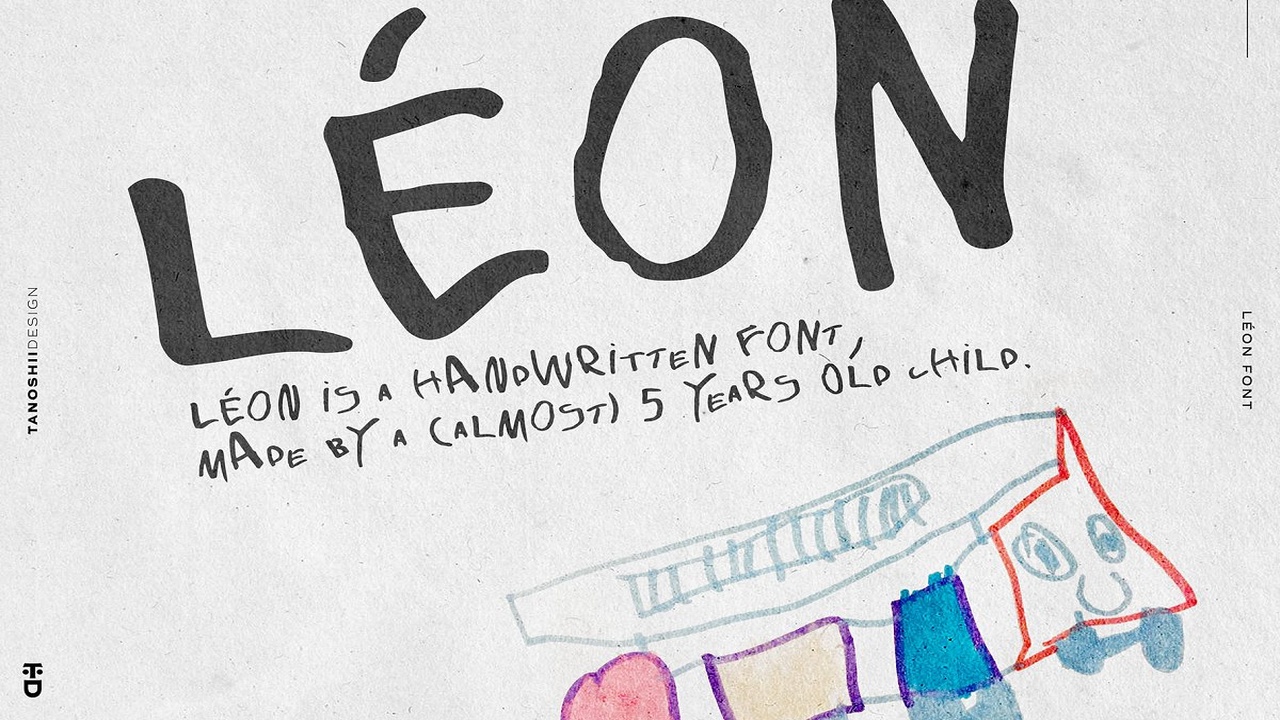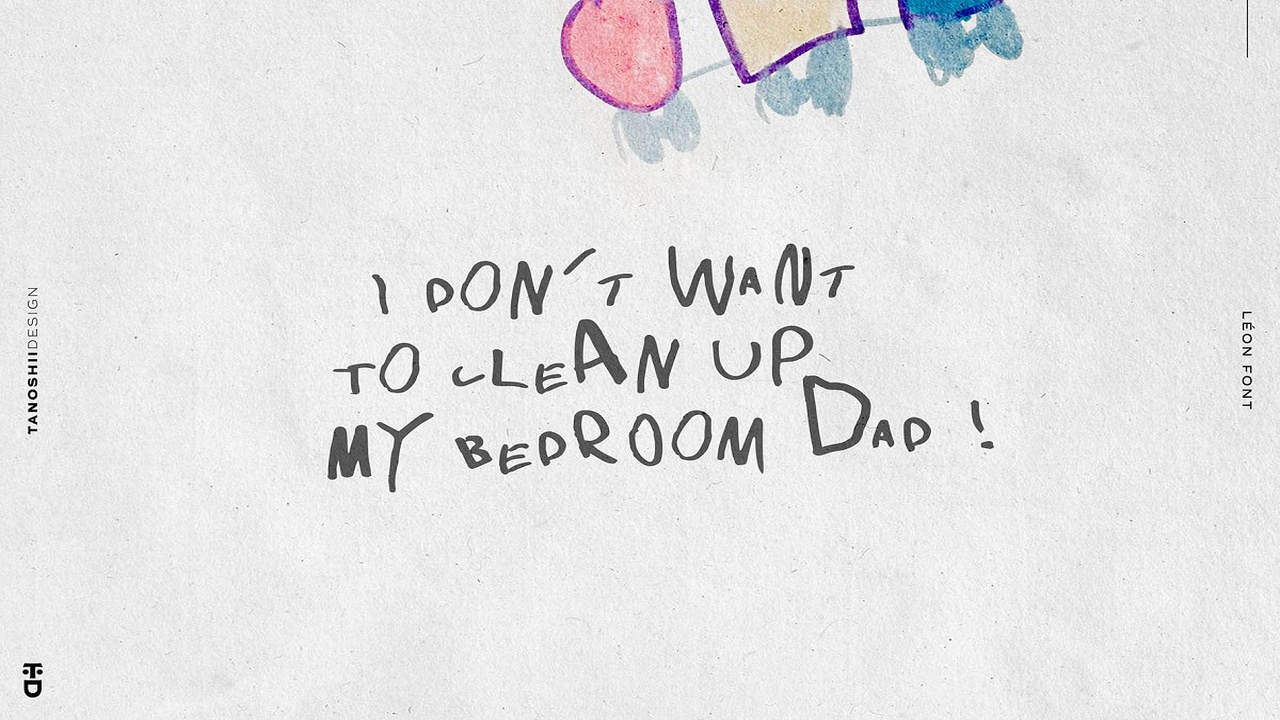
About the LON Handwritten Font
LÉON is a handwritten child font made with my (almost) 5 years old son, OTF onlyCAP onlyMockups, illustrations, paper texture shown in the preview examples are not included (For visual demonstration purpose only, )Thanks !